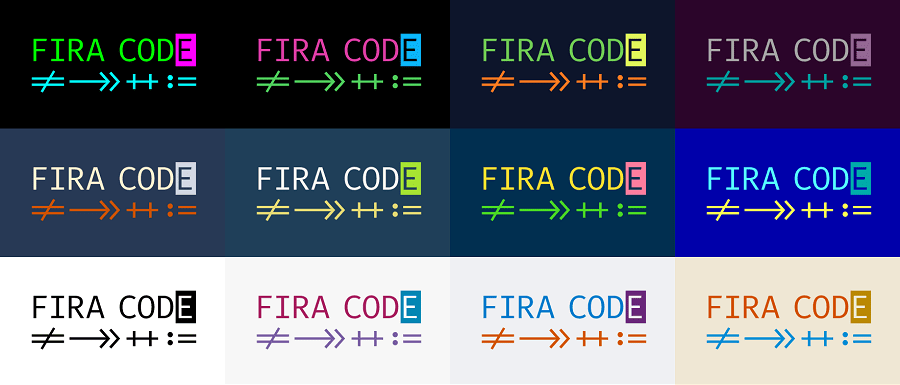
15 Best Programming Fonts for Better Coding
Are you having eye strain or difficulty reading your code after a few hours of hard work? Many programmers never think to switch their font until they start getting headaches.
If you often find your eyes blurring over trying to scan a thousand lines of code or your head hurting hours after you’ve stopped coding, it may be time to try a new font. Even if you’re not getting these symptoms, a well-designed font often offers superior readability over the default system fonts.
Want to mix things up a little? Plenty of these fonts are free, so it can’t hurt to try. Here are the best programming fonts to reduce eye strain and enhance readability, both free and paid.
Why Switch Your Programming Font?
IDEs and developer tools don’t always come packaged with the best font. Usually, they use a monospaced system font, and while it may work fine for some, others report eye strain or poor readability.
While most of these programs offer the ability to switch fonts, many people don’t take advantage of it. Some programmers may not even realize they’re using a subpar font until they switch to a community-backed alternative and realize how better things can be.
A good font can minimize headaches, make your code easier to scan, and even revolutionize how you work.
So what’s in a suitable programming font? Here’s what you need to look out for.
• Clear and easy-to-read characters to reduce eye strain when spending hours looking at hundreds of lines of code.
• Makes a clear distinction between commonly-confused characters such as the letter “O” and the number “0” or the lowercase “L” and the number “1”.
• Ligatures or extra whitespace for commonly-used symbols in popular programming languages – not for everyone, but others love it.
• Fonts with multiple variations on how certain characters are handled are great, so you can pick and choose exactly the version you prefer.
Many programmers prefer monospace/fixed-width fonts to help readability and make code easier to scan for errors, so most of them fall under that category. Some of them contain standard, non-monospaced versions bundled in if you prefer it that way.
In the spirit of open-source, many designers have released their programming fonts for free, much of them on sites like GitHub. The community loves and recommends these fonts, so feel free to download them and check them out.
1. Fira Code
Fira Code font styles
Fira Code font.
The concept behind Fira Code is simple: The monospaced font is designed to combine those frequently used multi-symbol sequences into one, reducing the time it takes to scan over your code and find what you’re looking for.
For example, the not equals symbol (!=) turns into one equals symbol with a slash through it, the opening and closing symbols in HTML (</) are spaced closer together, and so on. These ligatures exist for many programming languages.
And this doesn’t change any of the underlying characters themselves, how they look so that it won’t impact your code. It just makes it easier to read!
There are also some character variants so you can fine-tune the font how you like it.
Fira Code is supported by most browsers, and you can see how it looks in the real-world code examples they provide.
2. Proggy Fonts
Proggy Fonts markup
Proggy Fonts.
Proggy is loved in developer circles for its simple but effective look, especially for C and C++ coding. You have your usual features like a slashed zero and differentiated letters and additional optimization like vertically centered asterisks and axis-aligned arithmetic operators.
Proggy comes in several variations, including a vector version of the font and over a dozen bitmap versions that change how certain characters are rendered. Pick the one you like best and get to coding!
3. DejaVu Sans Mono
DejaVu Sans Mono font
DejaVu Sans Mono.
The DejaVu fonts were designed to cover the Unicode character set in its entirety, and while that goal hasn’t quite been reached, the coverage is far more vast than most other fonts provide.
DejaVu Sans Mono also follows this principle, but of course, it’s a monospaced font suitable for development. The readability and distinguished characters make it a good choice for programmers.
4. Source Code Pro